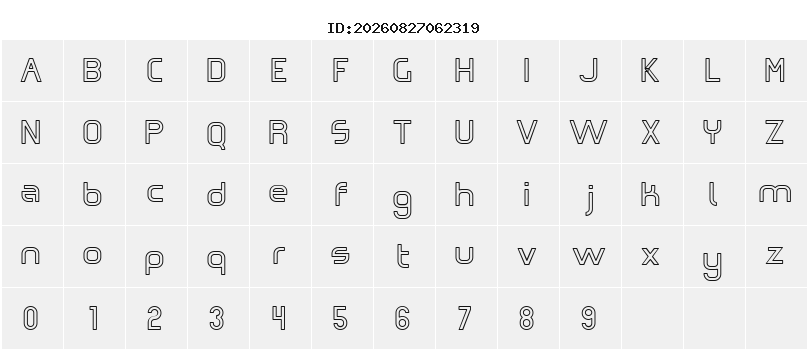
• Font Name: 568-CAI978
• Full Font Name: 568-CAI978
About 568-CAI978.ttf
568-CAI978.ttf is a modern, elegant sans-serif font designed for ultimate readability and visual harmony. Perfect for branding, headlines, web design, and print materials.